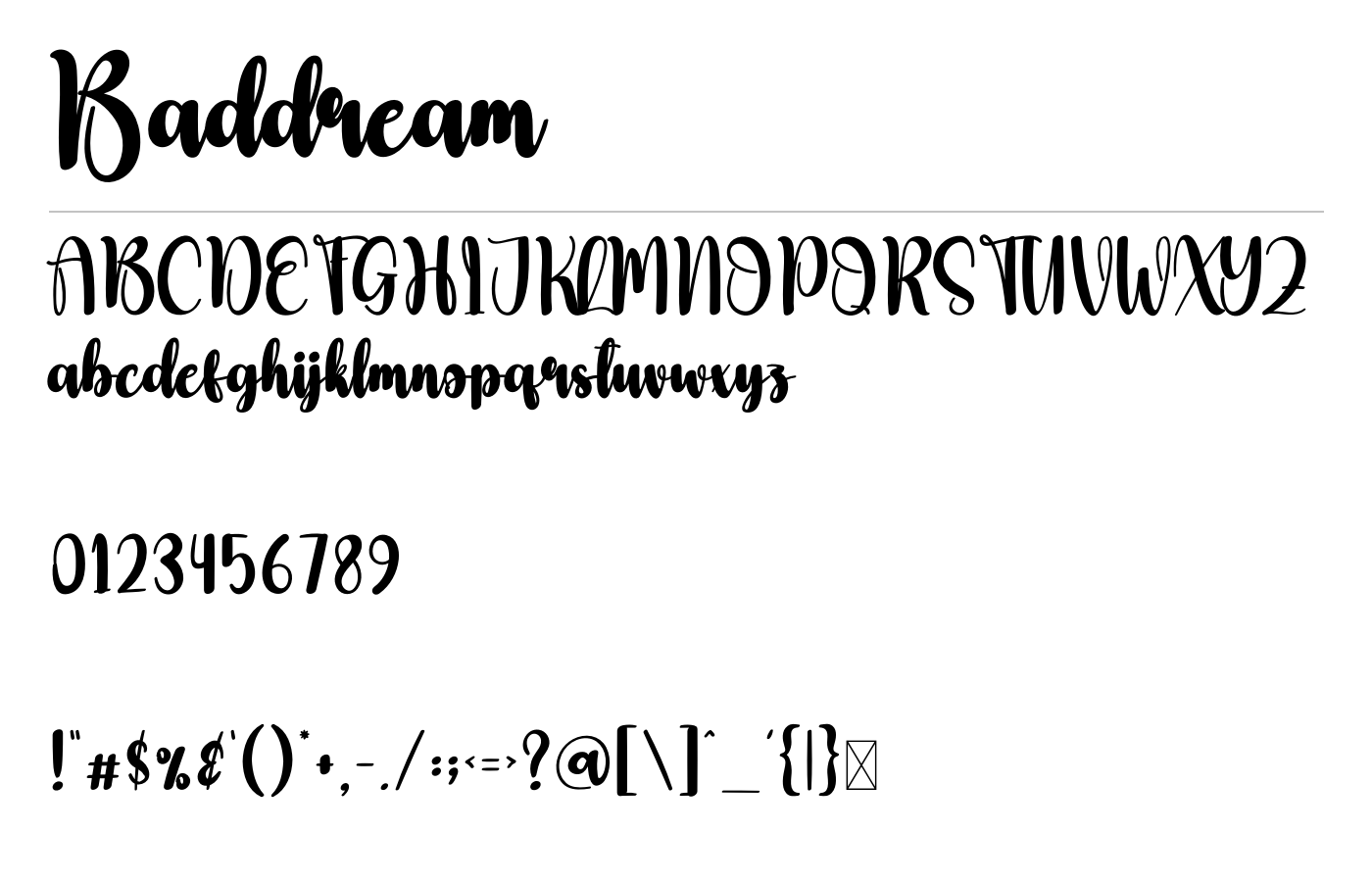
Baddream is a playful and charming script font with a bold weight and a casual, handwritten feel. Its tall, rounded letterforms feature smooth curves and slight decorative flourishes, making it perfect for creative and friendly branding, logos, and headlines that seek a warm, approachable personality. This font works well in designs that need a personal touch while maintaining clear readability and strong visual impact.
Baddream Font
About Baddream Font